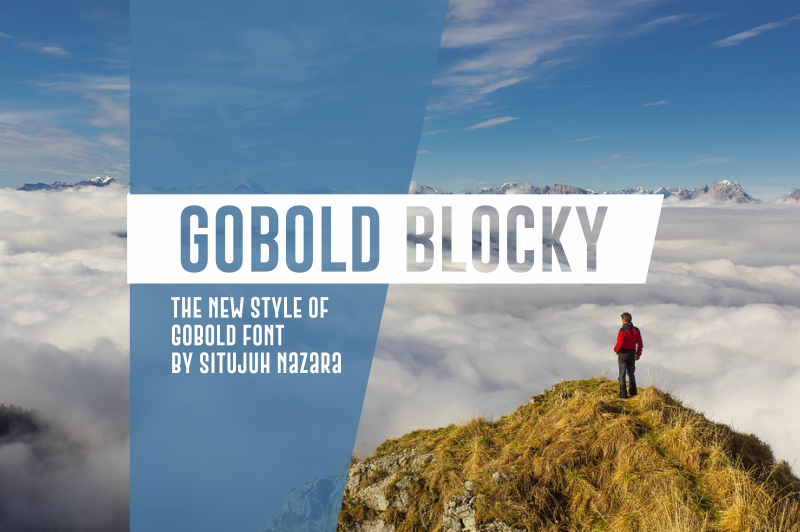
Gobold Blocky Font by Situjuh Nazara, is a new style populer GOBOLD font (http://www.dafont.com/gobold.font). It is designed for need of a block style with transparent background of the font. Since it supports the OTF and PUA encoded Font, you will be easily change the beginning and the end of letter styles. Ligature substitution is use to make a different block before and after the words block, type as followings: ||your text�_/ |*your text*| |:your text:| ((your text)) (*your text*) /_your text_/ \_your text_\ >|your text|< >>your text<< >[your text]< >{your text}> <|your text|> <*your text*> [[your text]] {{your text}} (*your text|> License: Free for Personal Use. For the commercial, donate minimal $10 USD or Buy the license on my CF page: https://www.creativefabrica.com/product/gobold-blocky/ref/87/ Thanks you for downloading! |